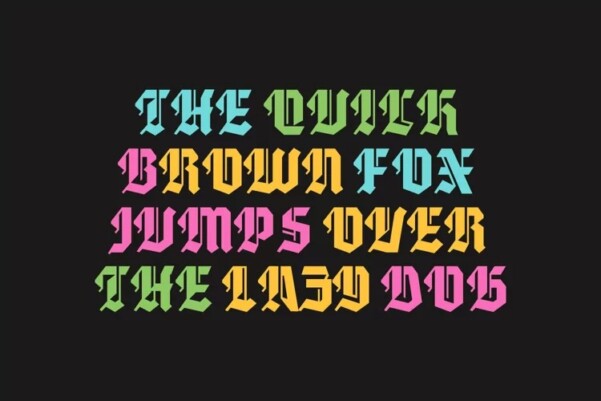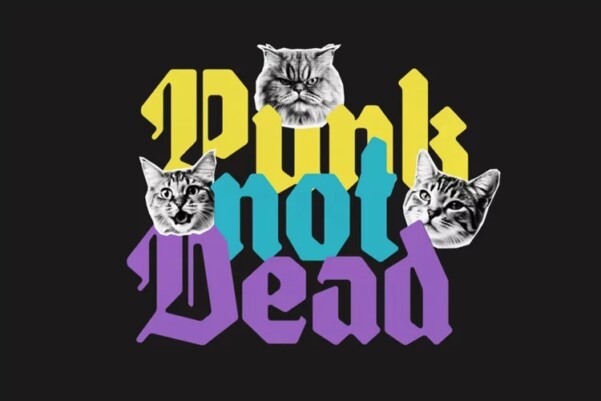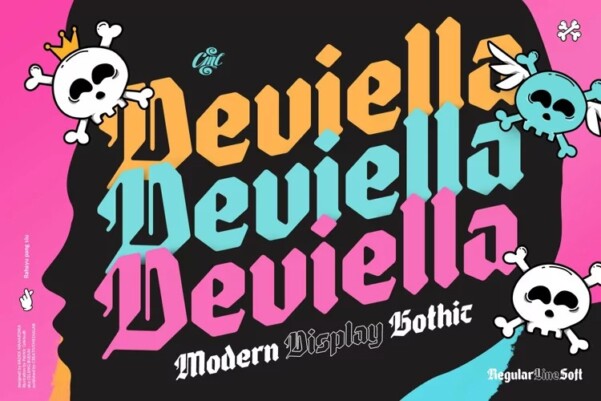
Deviella Font
Deviella Font, Simple and minimal gothic blackletter font for your designs. Packed with 3 elaborate styles, it includes uppercase, lowercase, currency symbol, punctuation, and multilingual support. Perfect choice for clothing, labels, packaging, branding, or any gothic related projects.